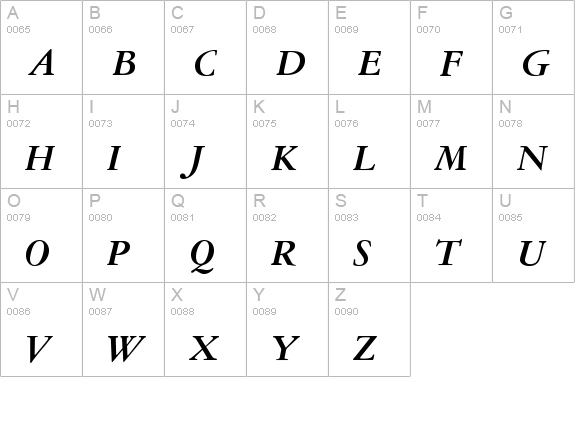
American Garamond Bold Italic Font Details
American Garamond Bold Italic is a strong, high-contrast, italic variant in the American typeface family \xE2\x80\x94 well suited to headlines, attention-grabbing titles, and strong calls-to-action.
American Garamond Bold Italic is a timeless and elegant font that combines the classic Garamond style with a bold and italic twist. This unique typeface exudes sophistication and professionalism, making it the perfect choice for a wide range of design projects. With its strong and slanted letterforms, American Garamond Bold Italic commands attention and adds a touch of flair to any text. Whether used for headlines, titles, or branding materials, this font is sure to make a statement and leave a lasting impression on viewers. Best of all, American Garamond Bold Italic is available for free download at FontsMarket.com. This means you can easily access and use this stunning font in your projects without any cost. Don't miss out on the opportunity to enhance your designs with the beauty and versatility of American Garamond Bold Italic. Download it today and elevate your typography game to new heights!